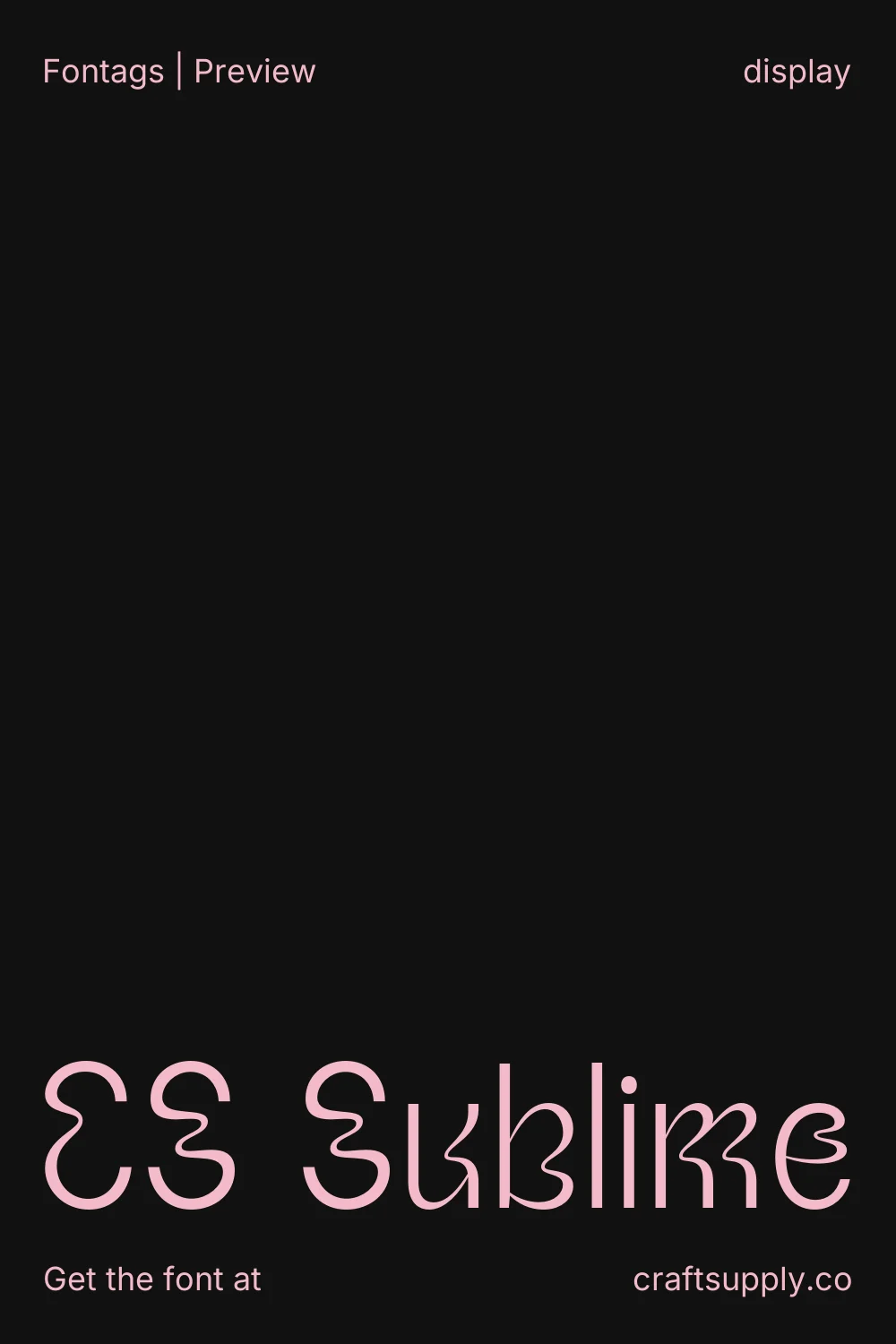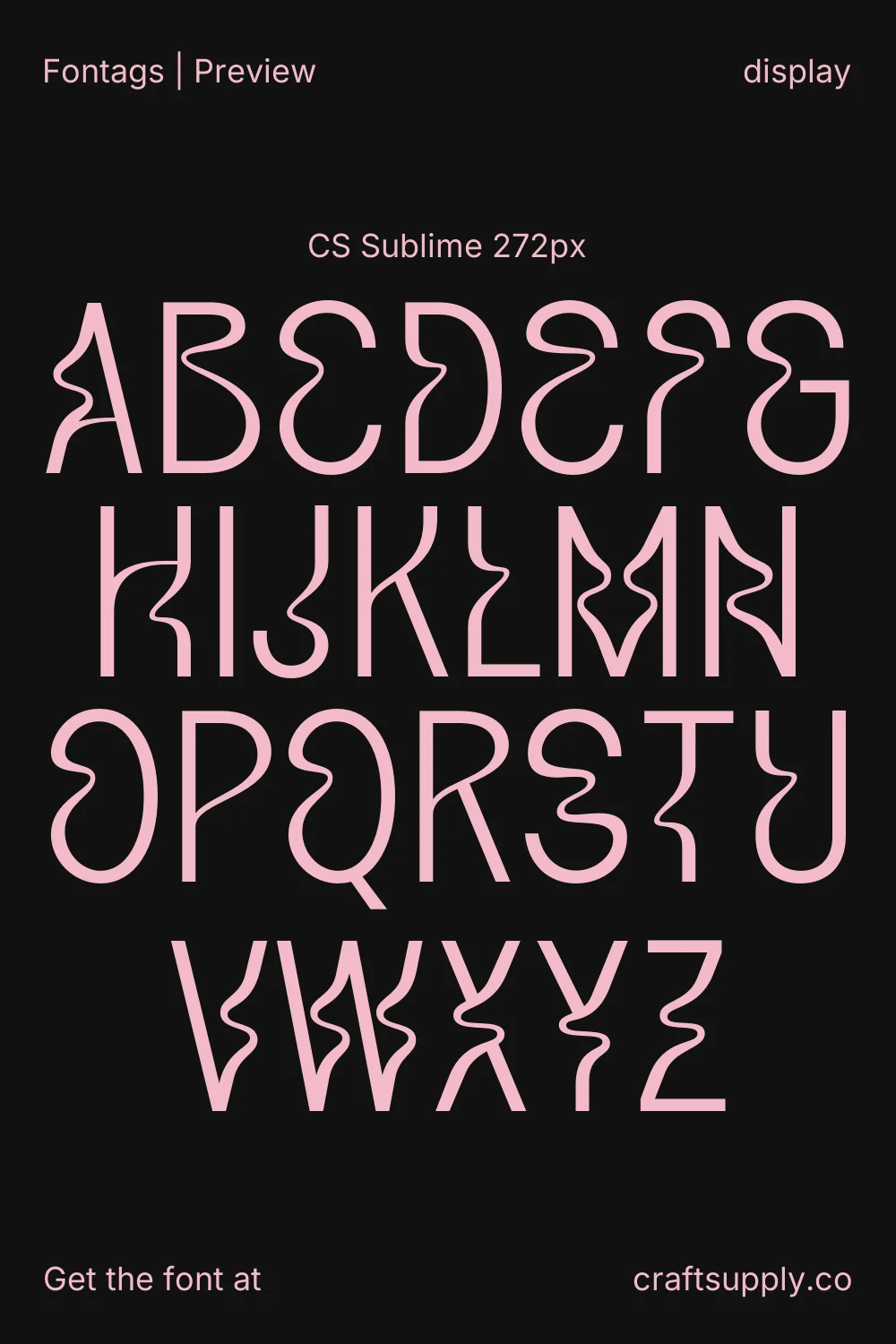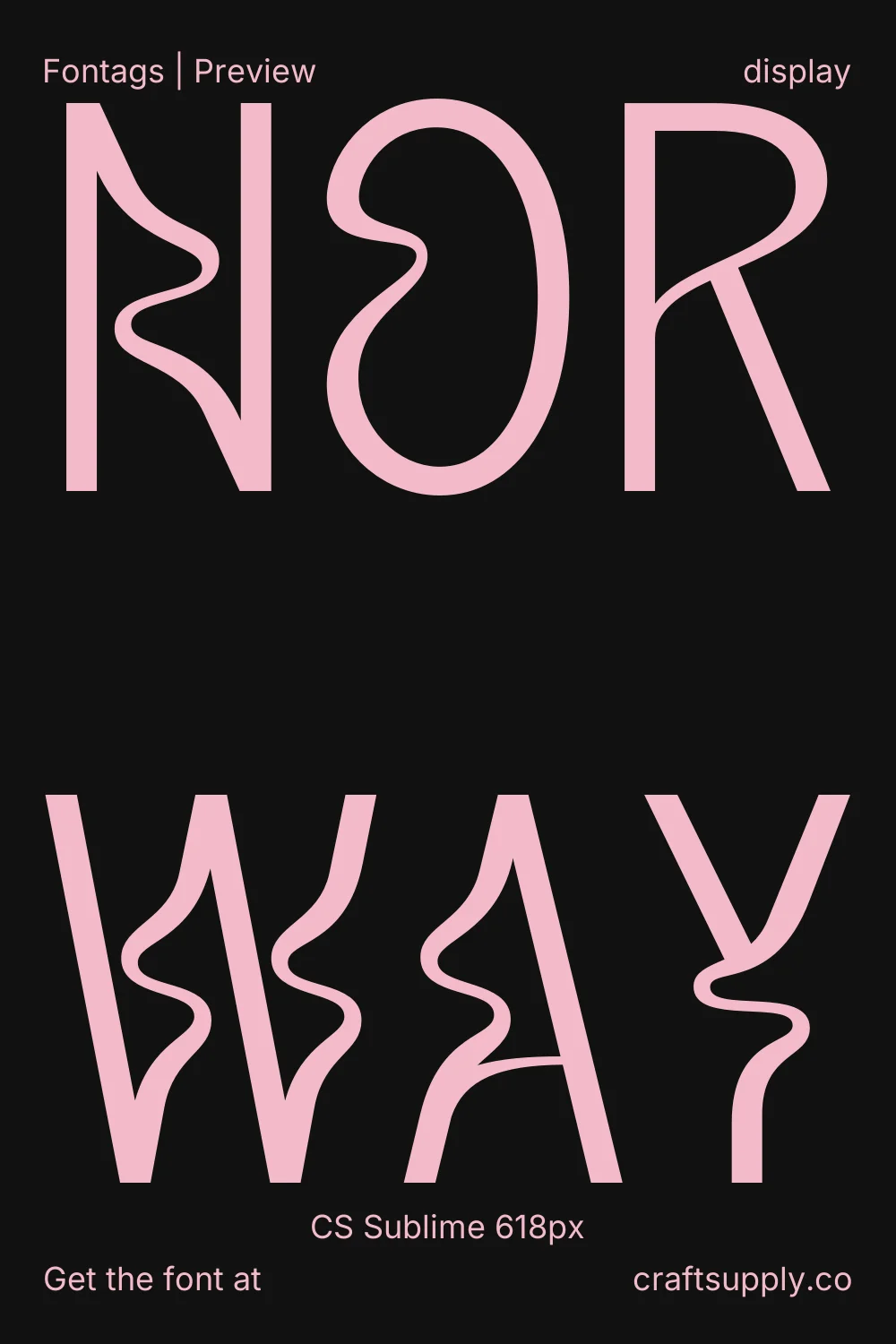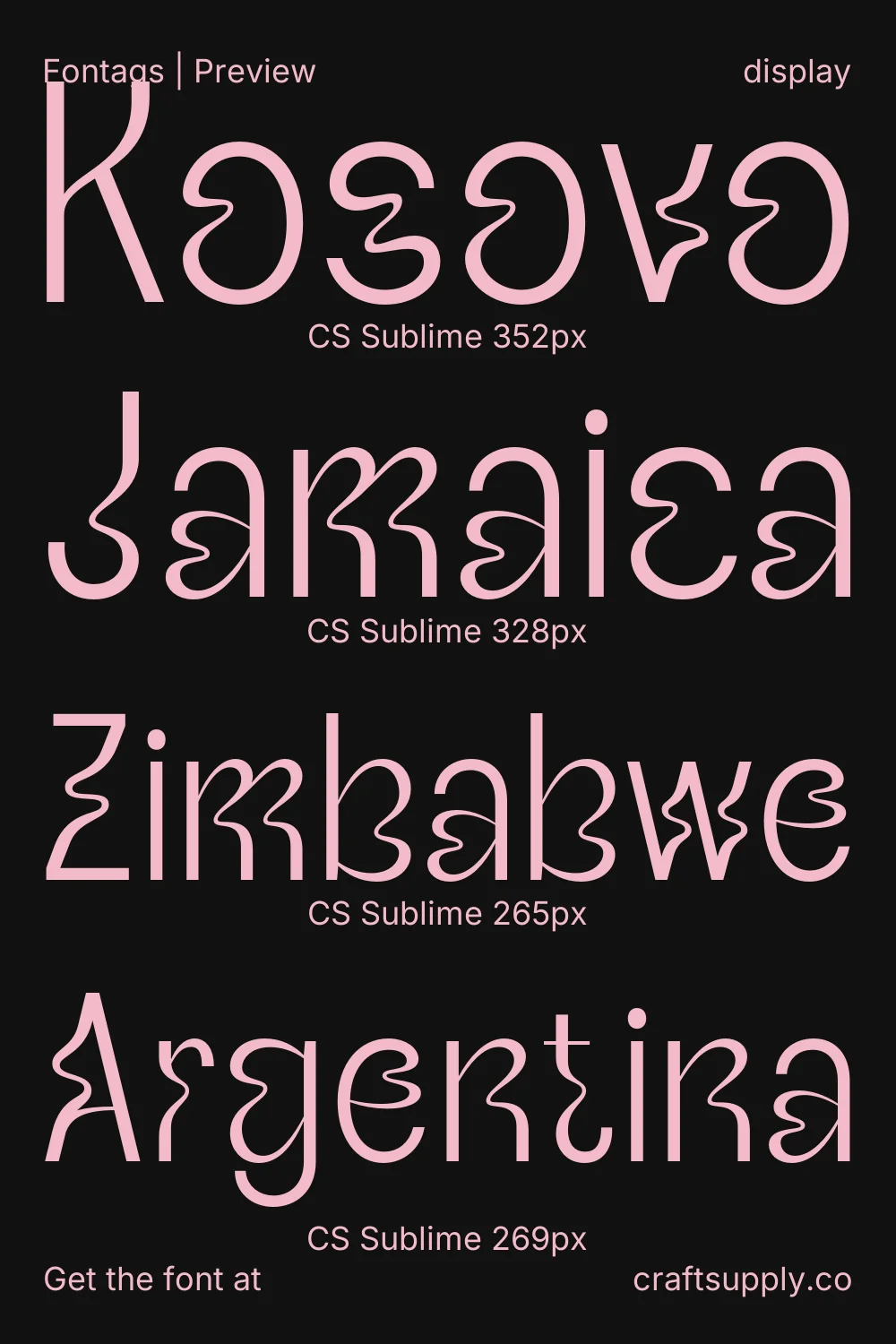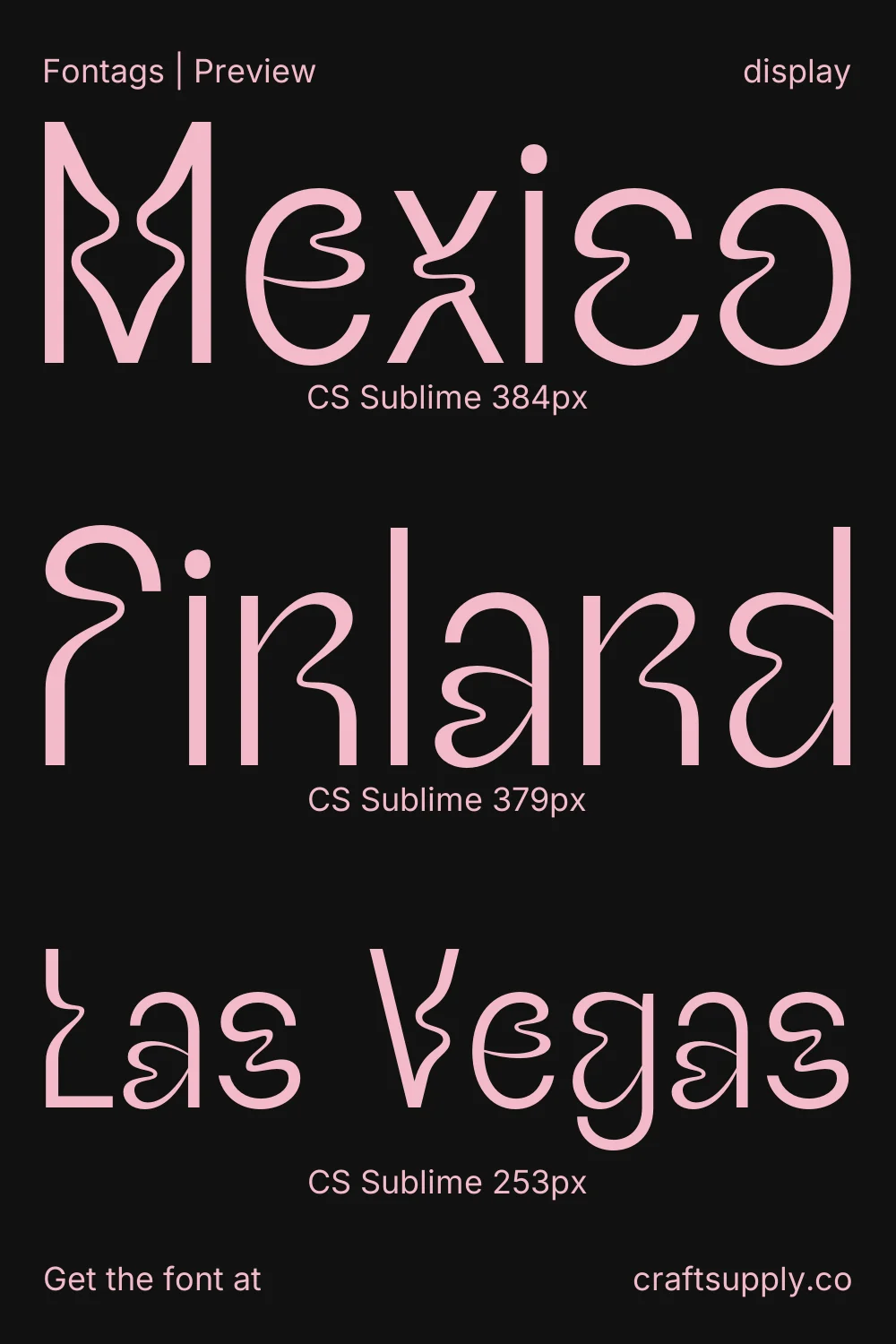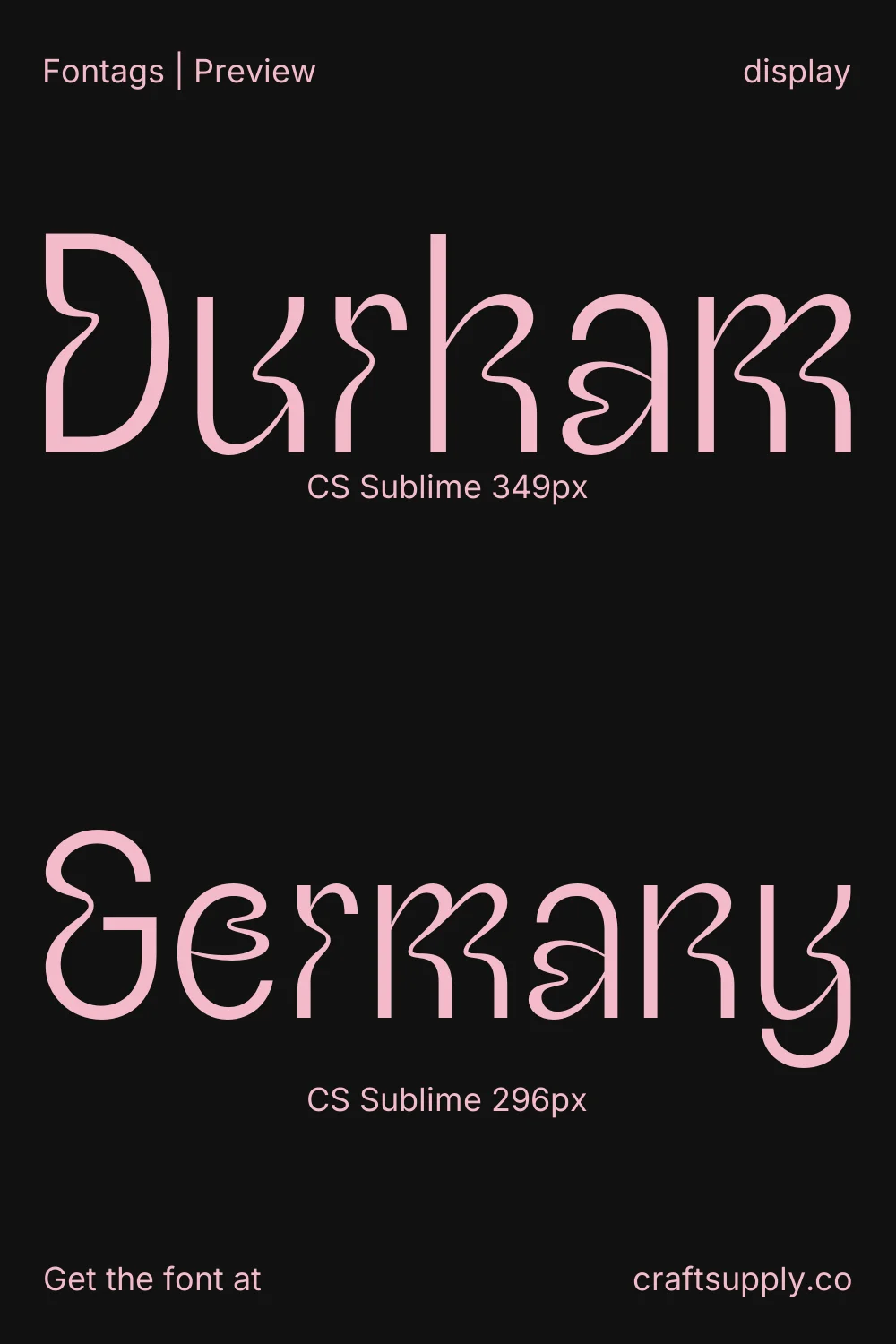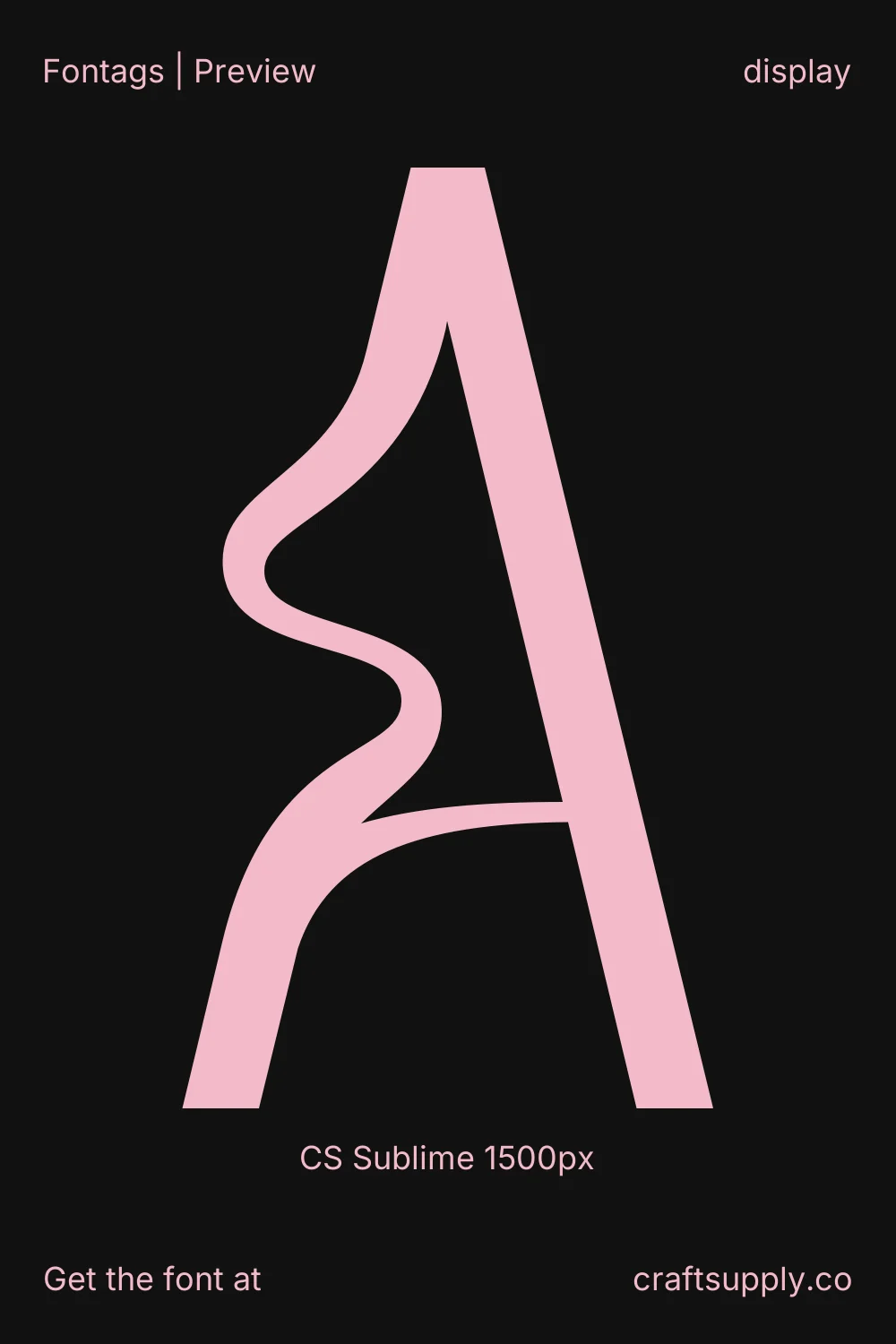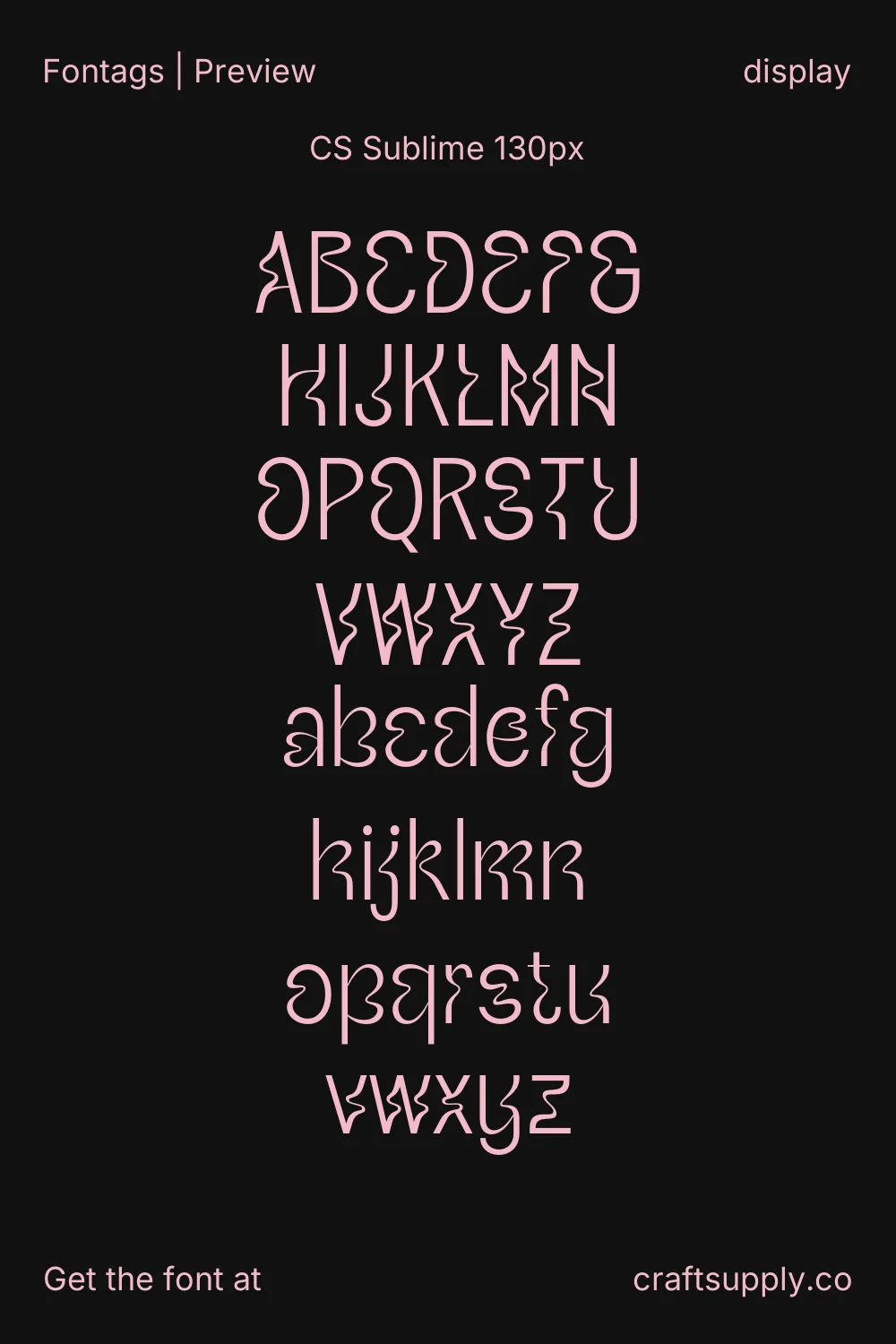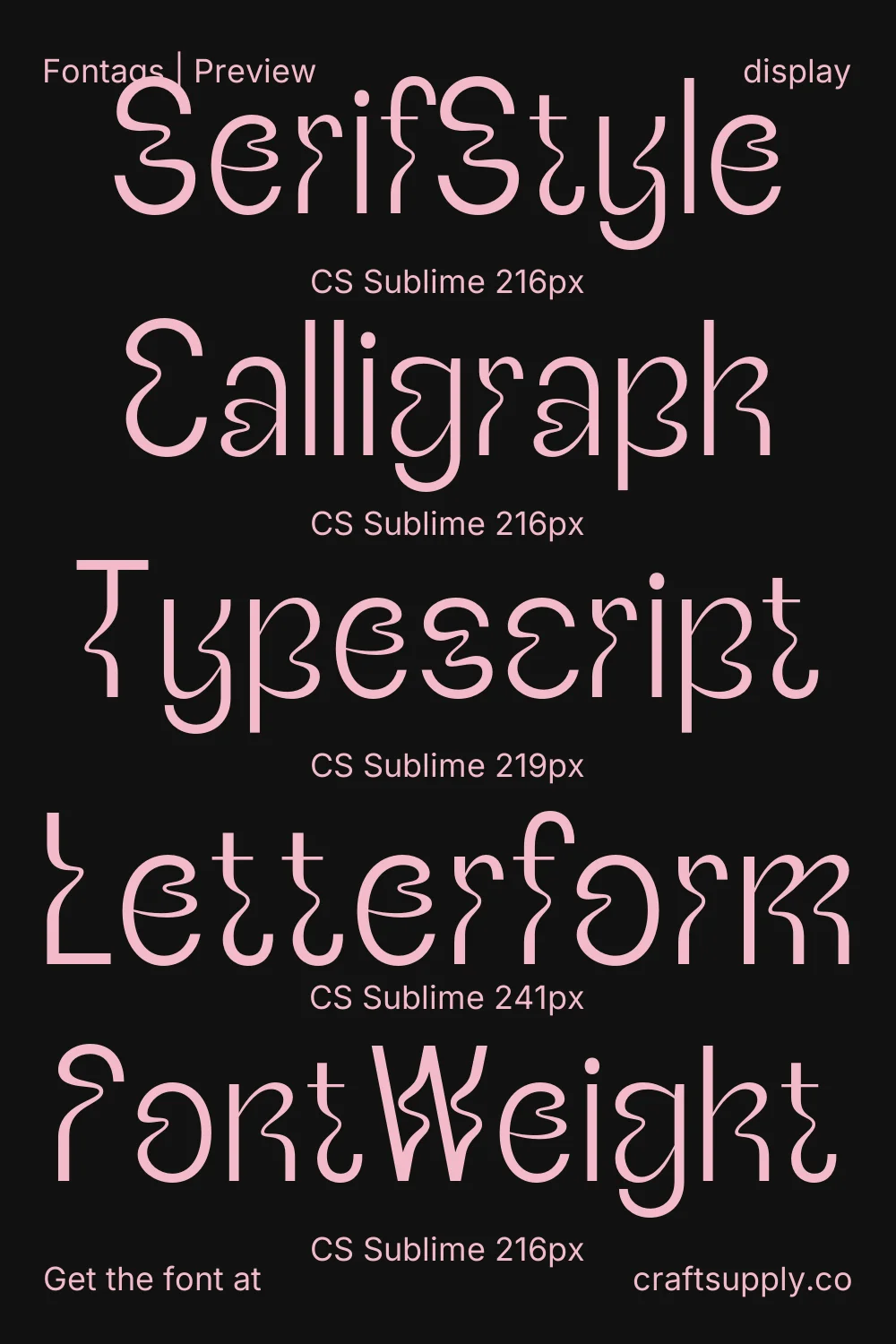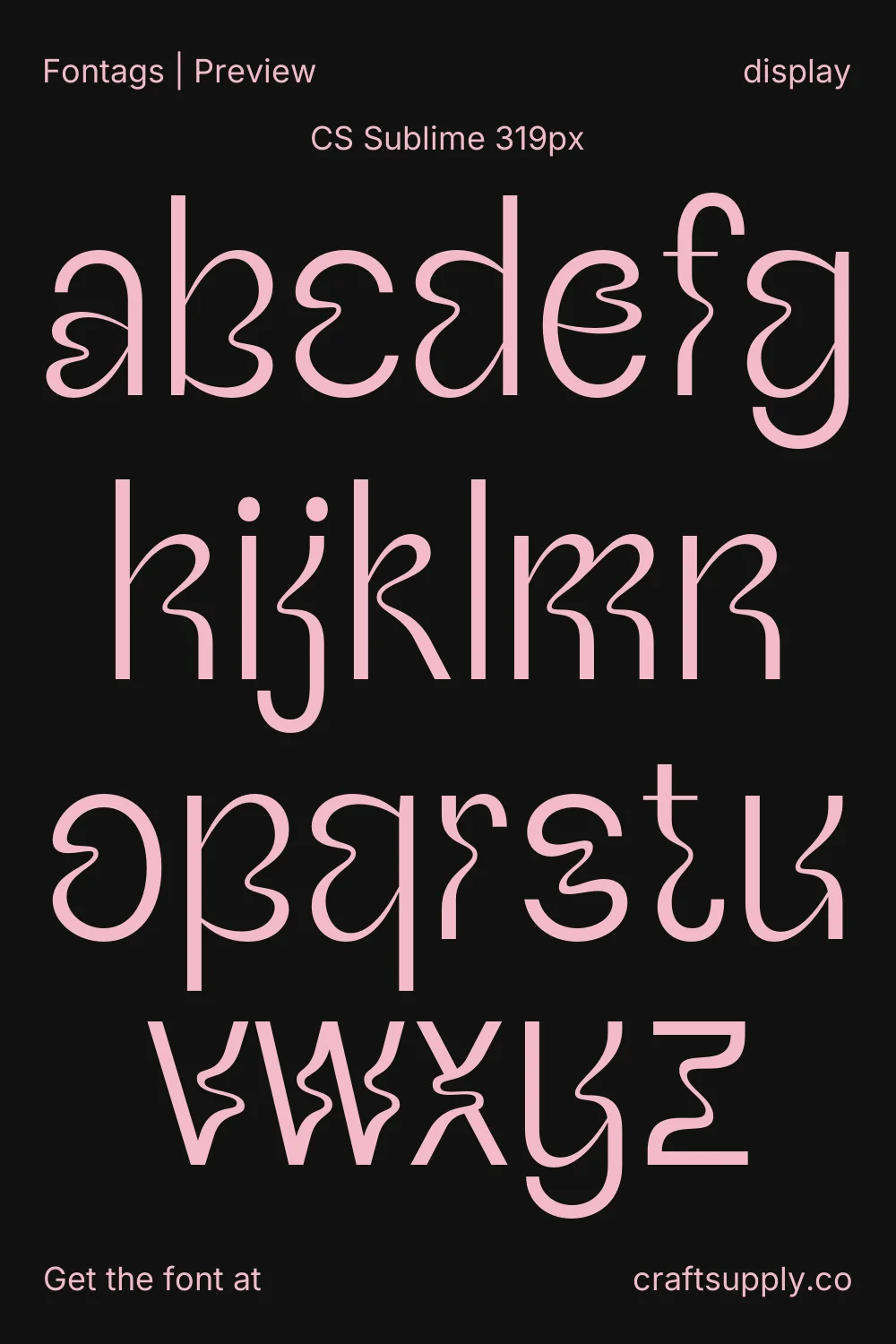
CS Sublime
CS Sublime is a modern display font with trippy, psychedelic shapes and curvy, wavy forms. It exudes a funky, cheerful vibe, making it perfect for music posters, event promotions, album covers, and any vibrant design that needs to stand out. The font includes Regular, Italic, and Reverse Italic styles with multilingual support.